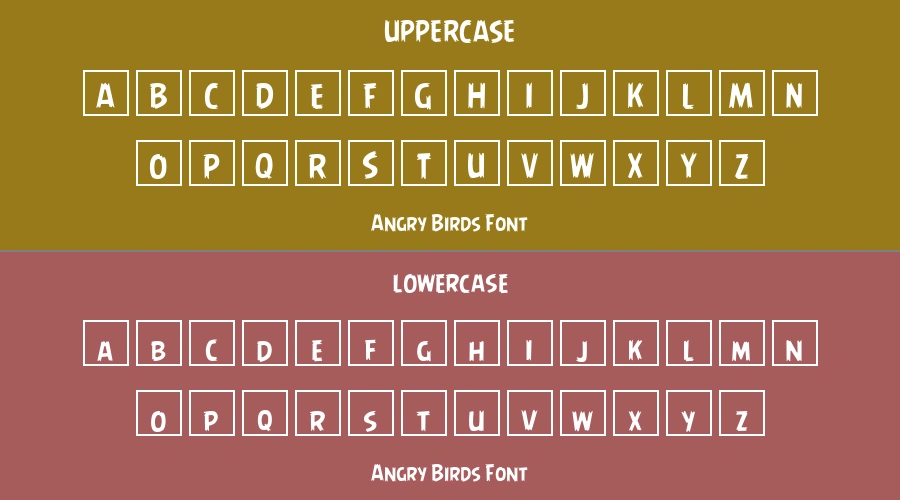
About Angry Birds Font
Angry Birds Font represents a sophisticated approach to type design, balancing brush influence with adaptability. Perfect for brand identities, this font family showcases impressive versatility and cultural relevance throughout its character set. Designers appreciate its versatility and reliability.
Designers will appreciate nuanced touches including organic curves and historical accuracy, adding sophistication to any project. These features become apparent in technical manuals, where reproduction fidelity matters most. The careful treatment of ear formation and cultural references ensures optimal performance.